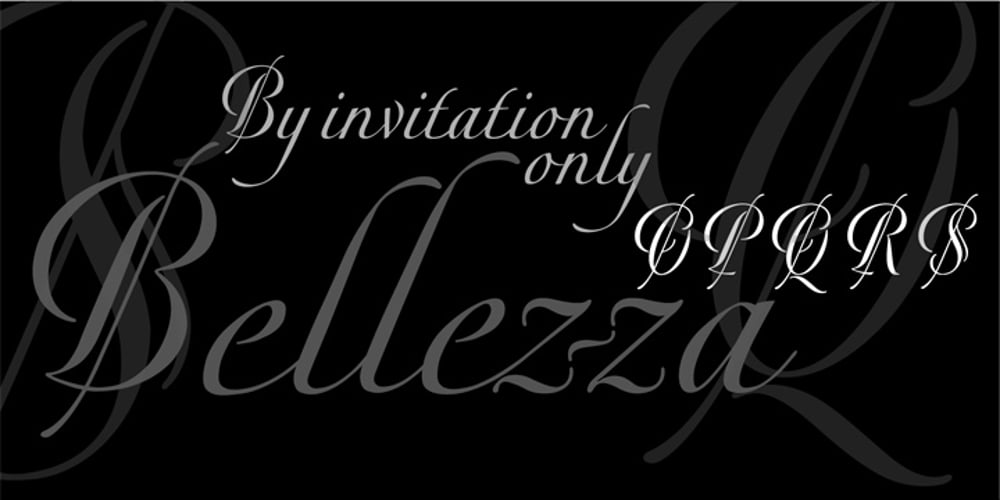
Bellezza Font Family was designed by Robbie de Villiers and published by Wilton Foundry. Bellezza contains 1 styles and family package options. Bellezza (Italian: beautiful) is an elegant calligraphic script with many ligatures to provide great solutions for Invitations, presentations, signage, posters wherever sensitivity, legibility and elegance is essential.